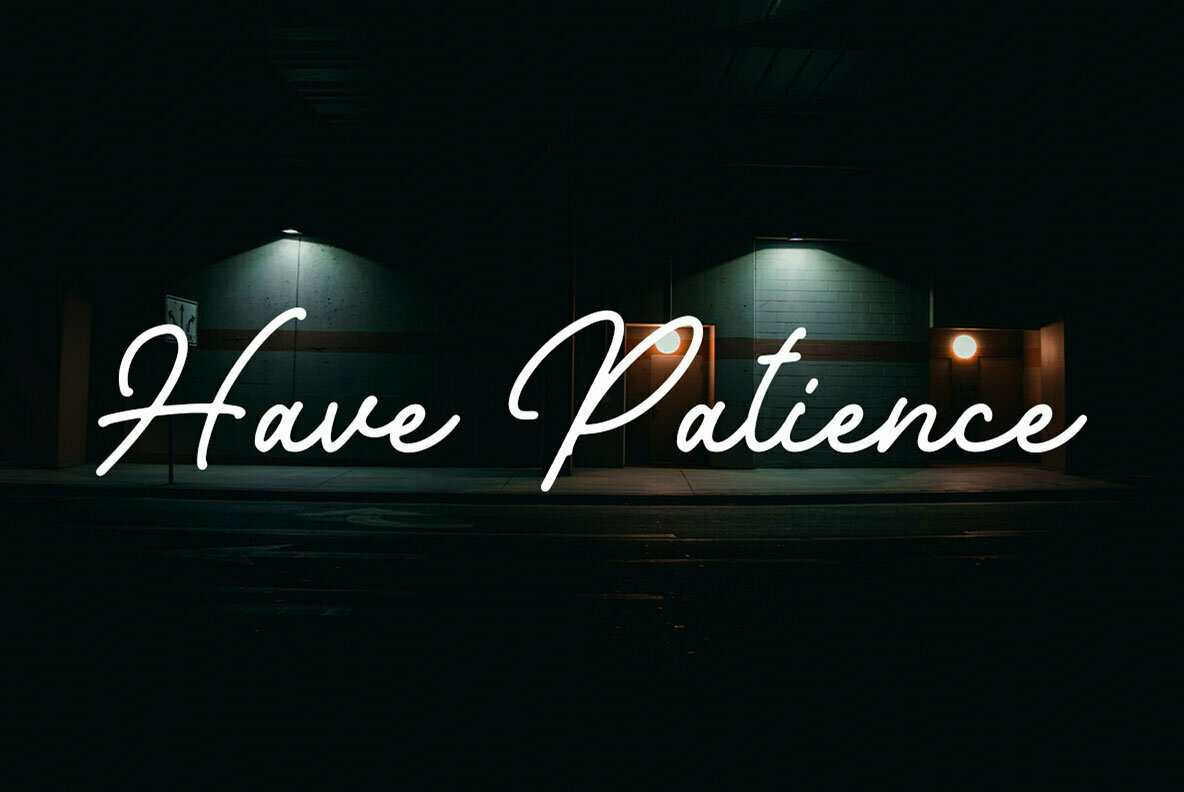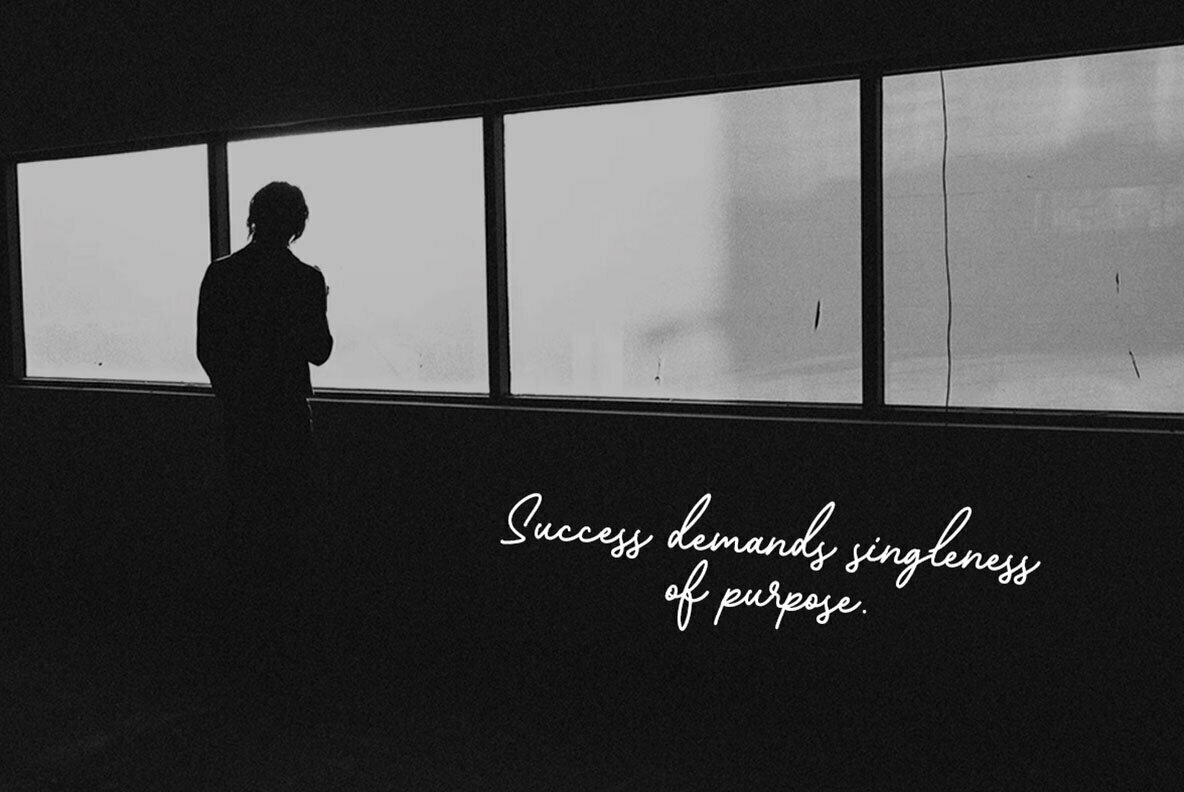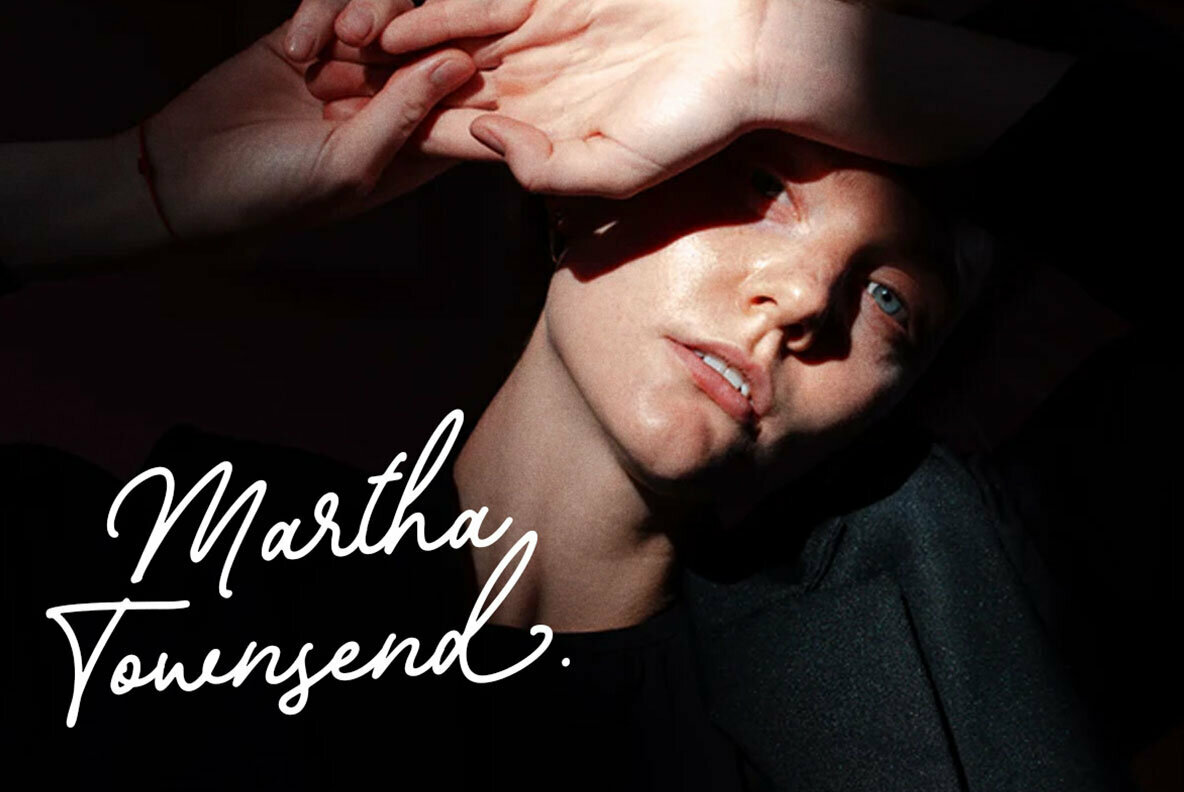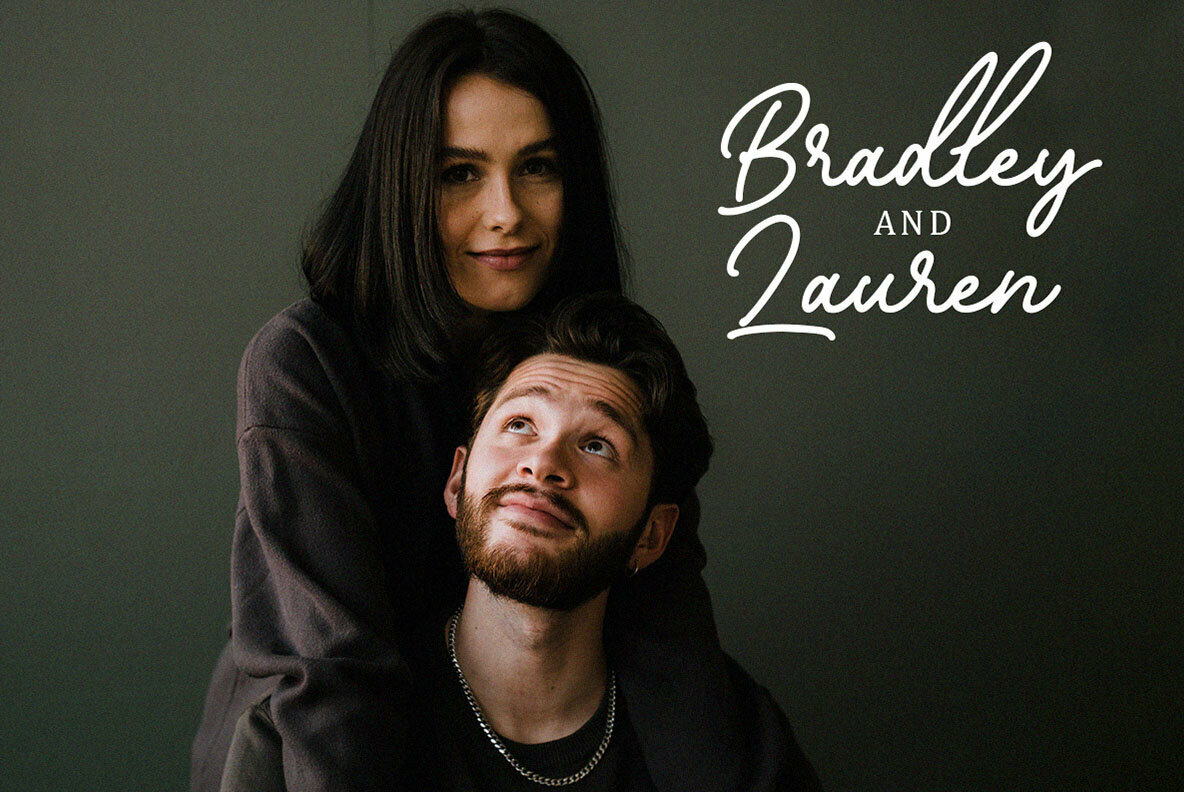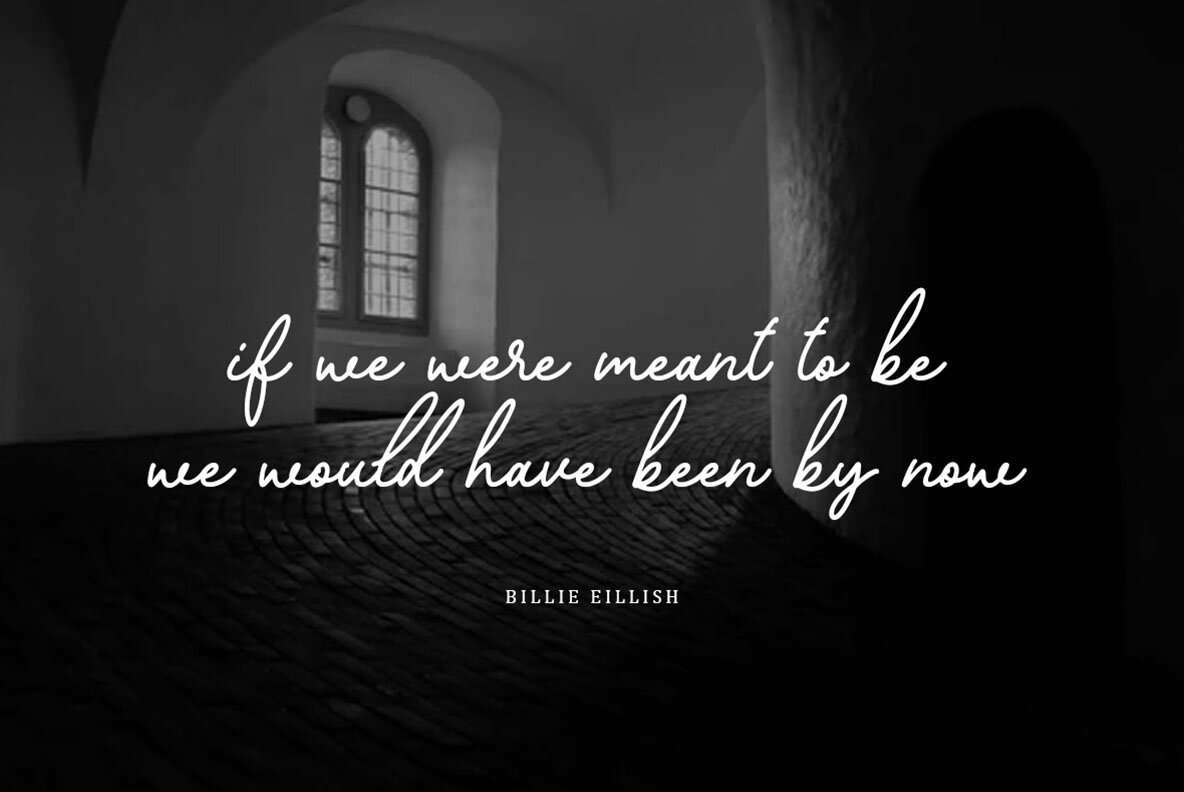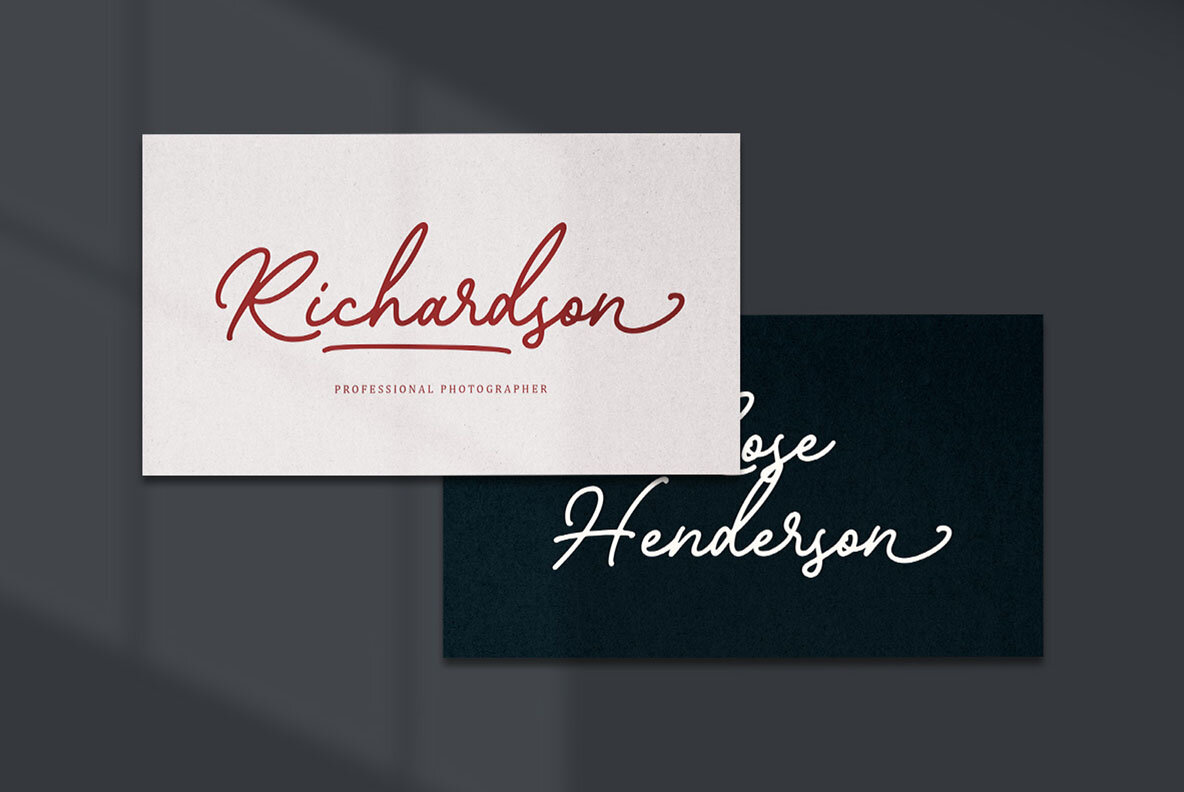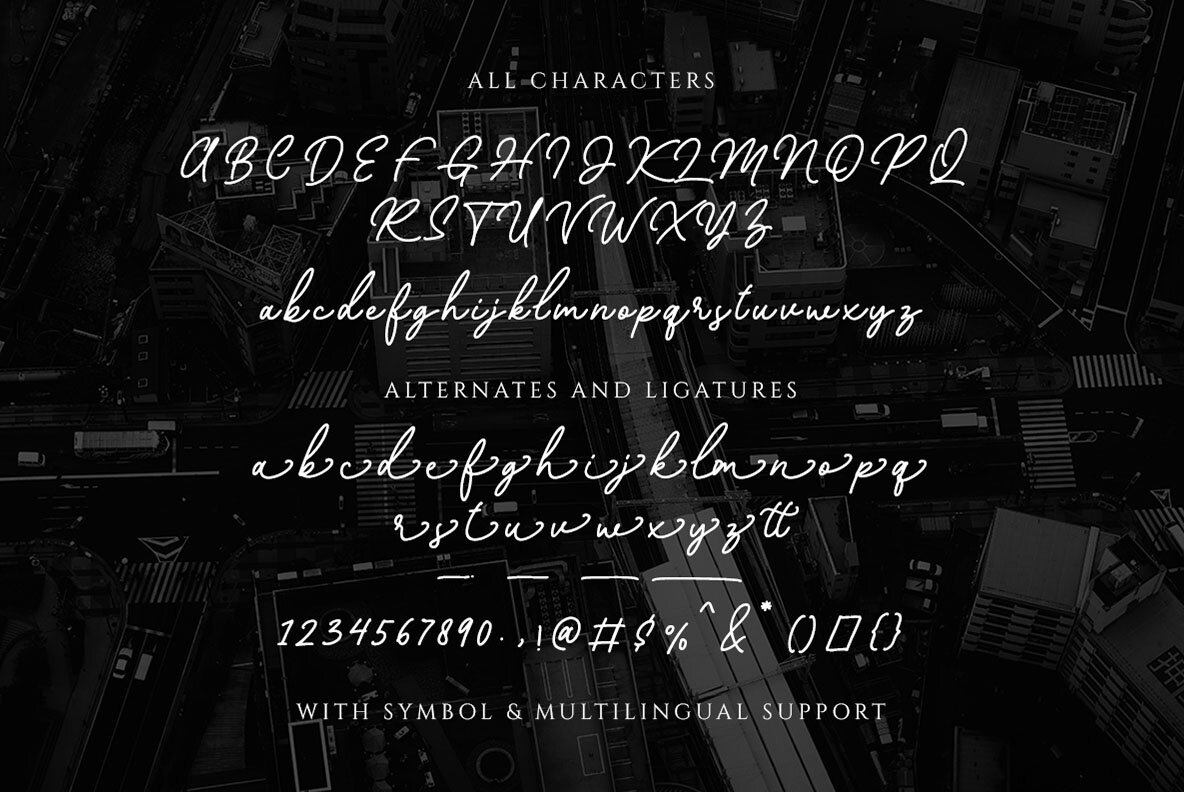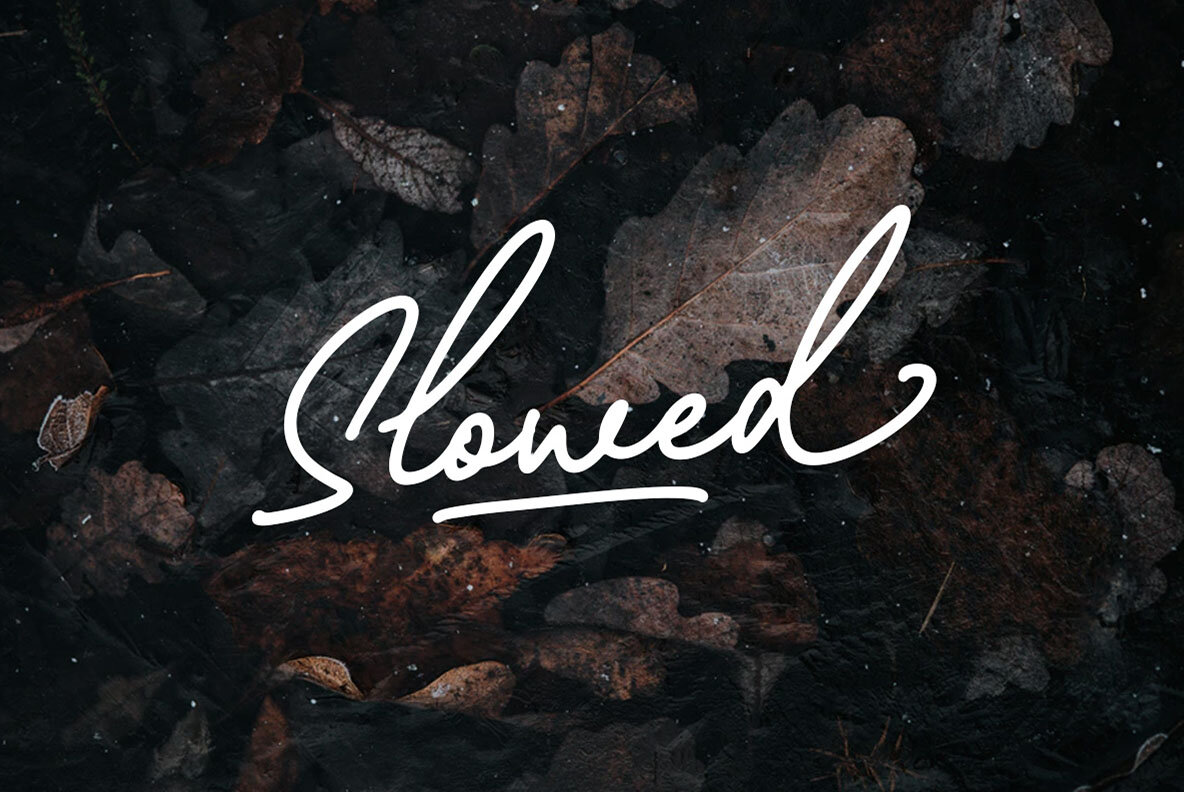
Balaikota Font
Balaikota Regular
Balaikota provides the perfect touch of elegance and personality to any project with its unique monoline script style. This font offers a handwritten aesthetic that enhances creativity while ensuring clarity.Balaikota: Handwritten Monoline Script for Distinctive Designs